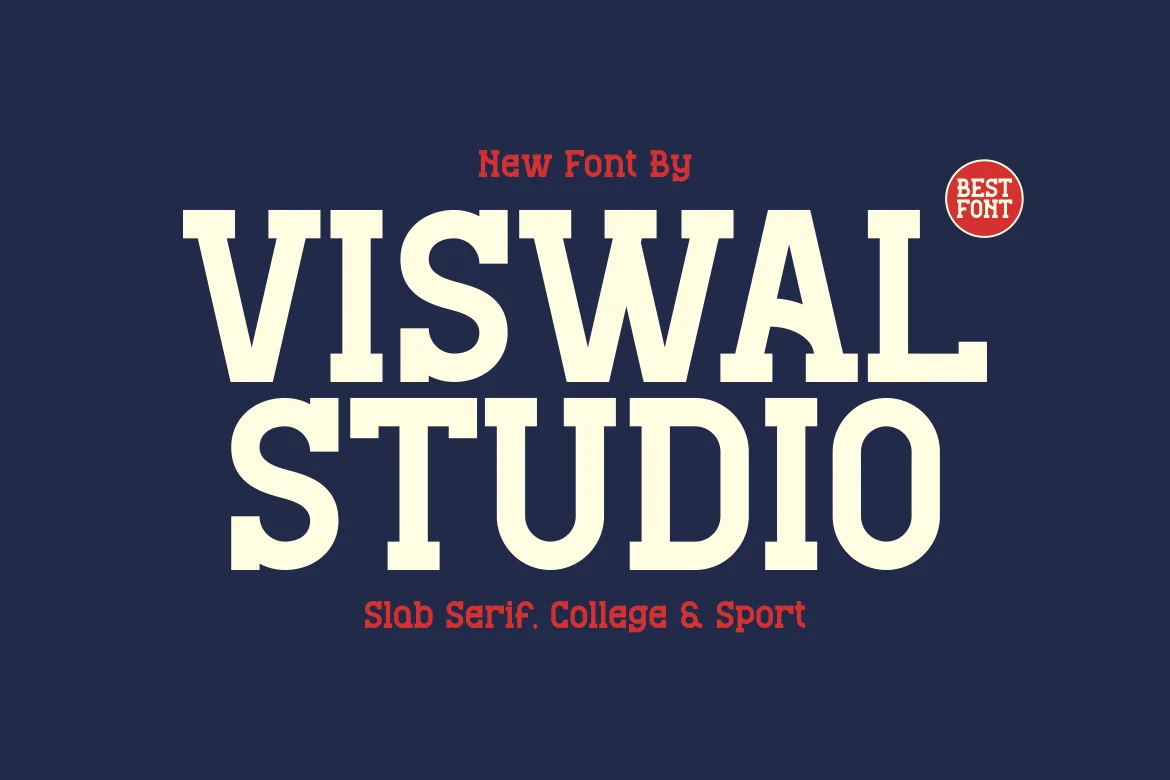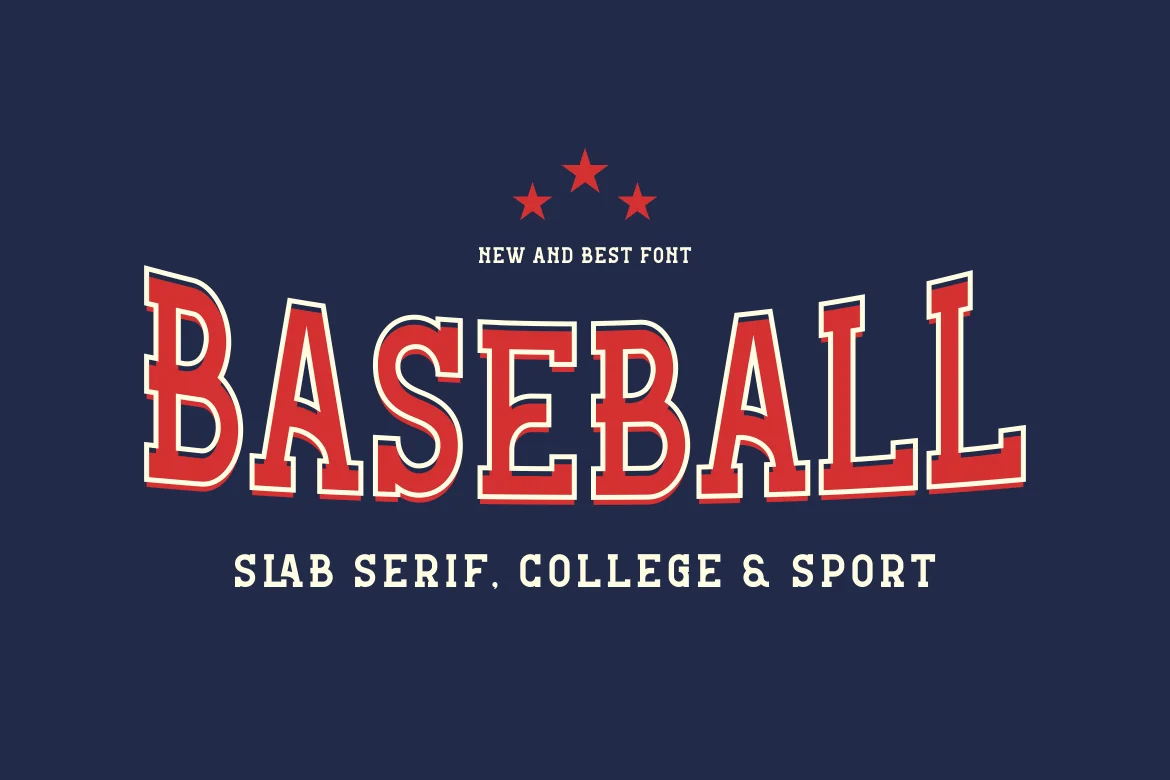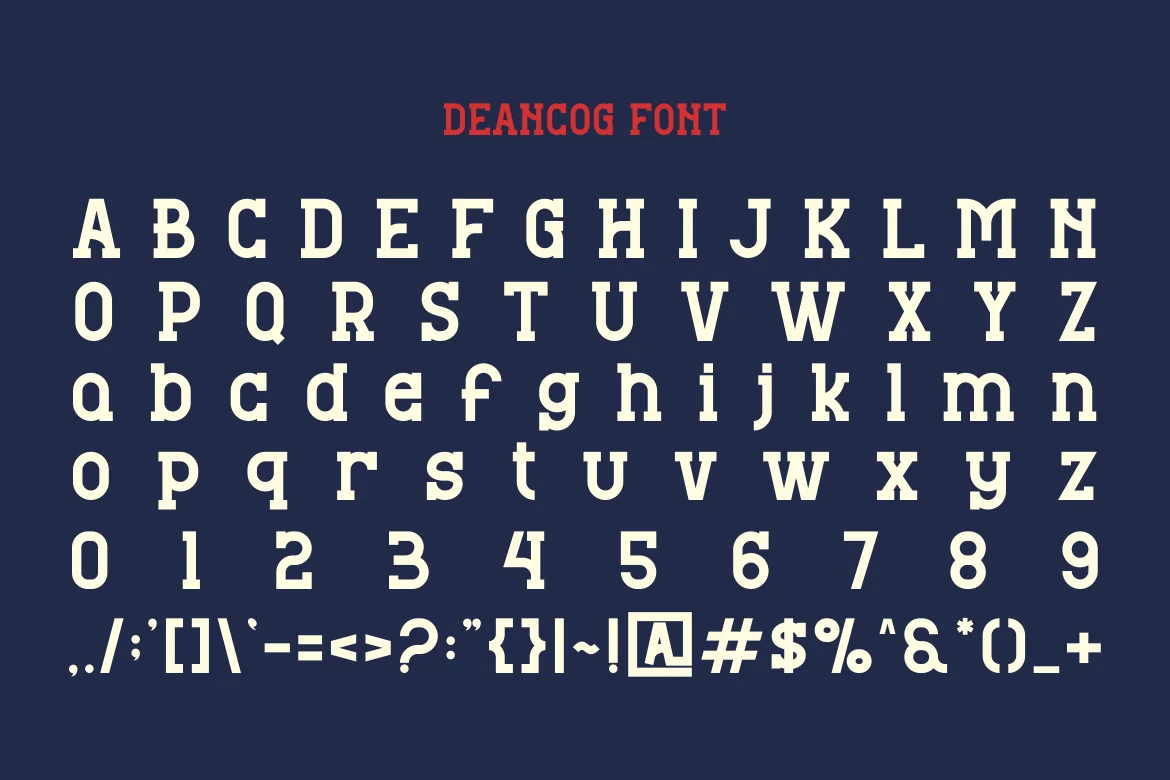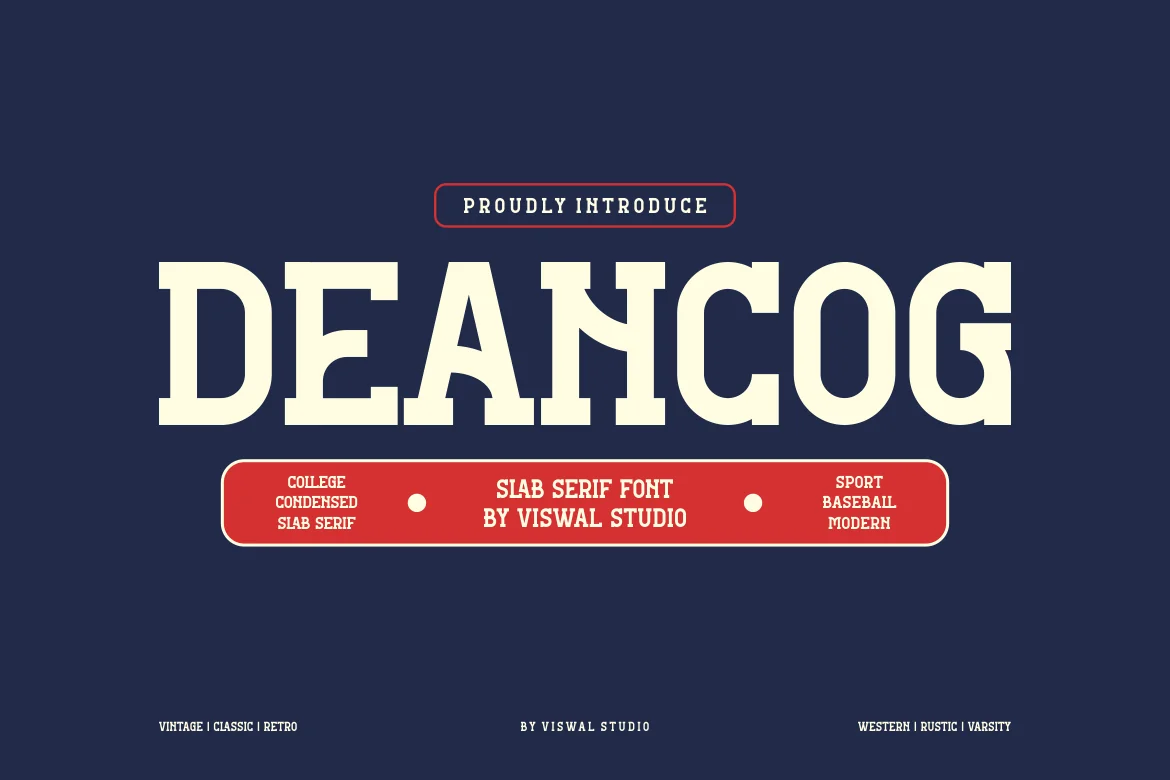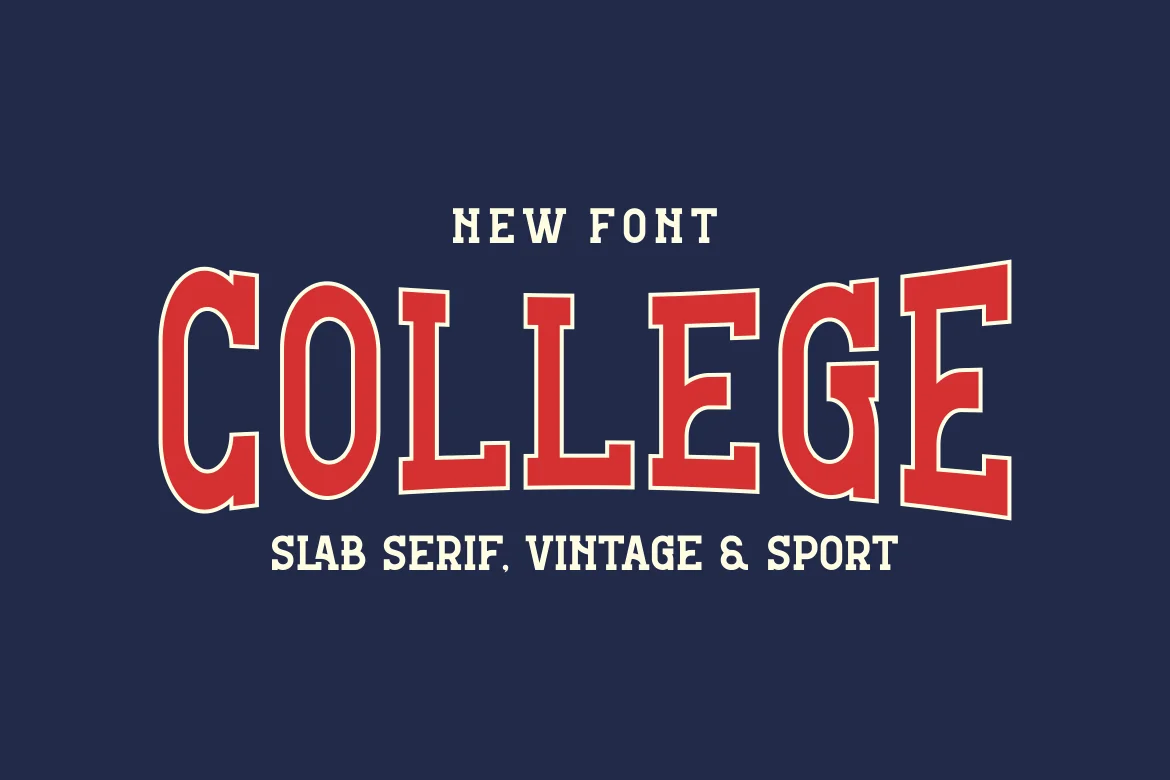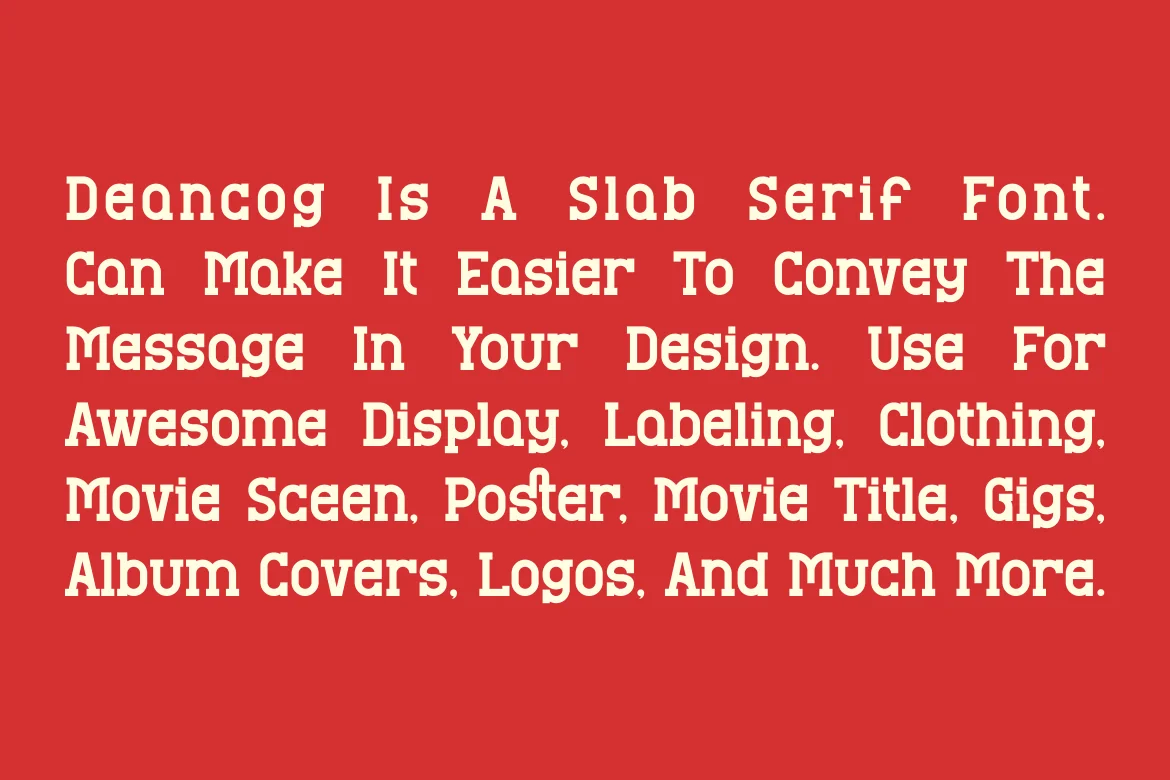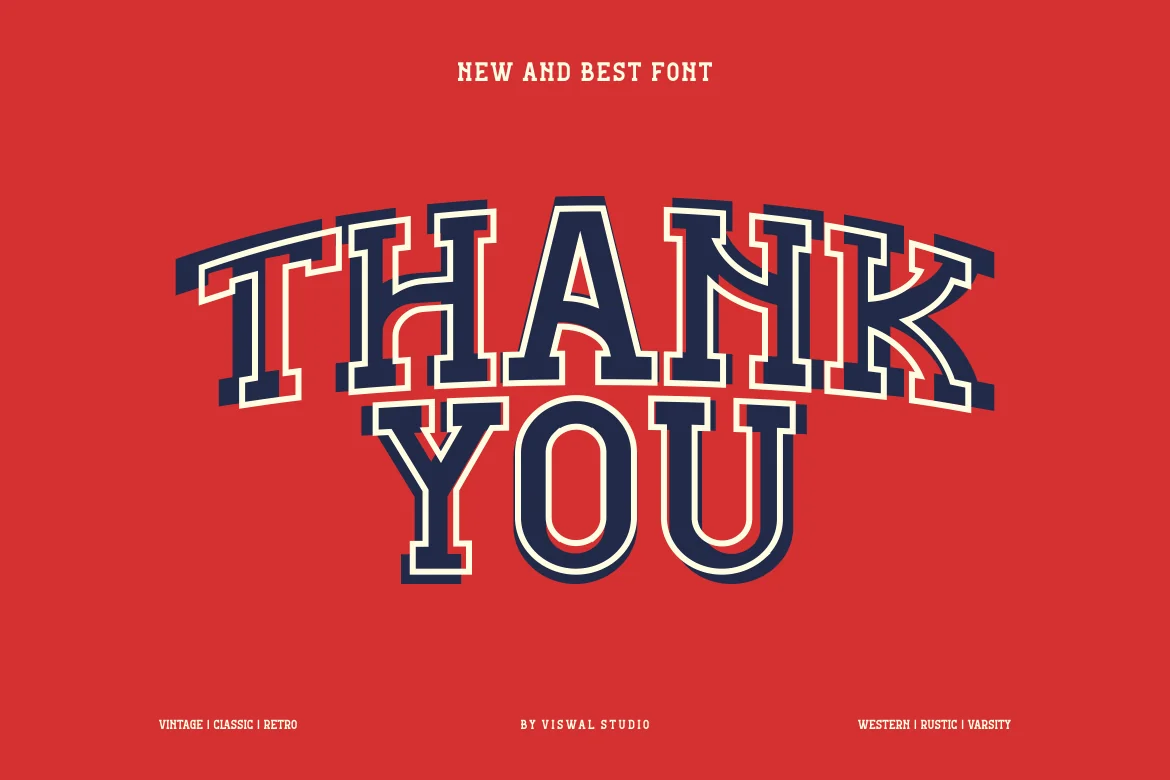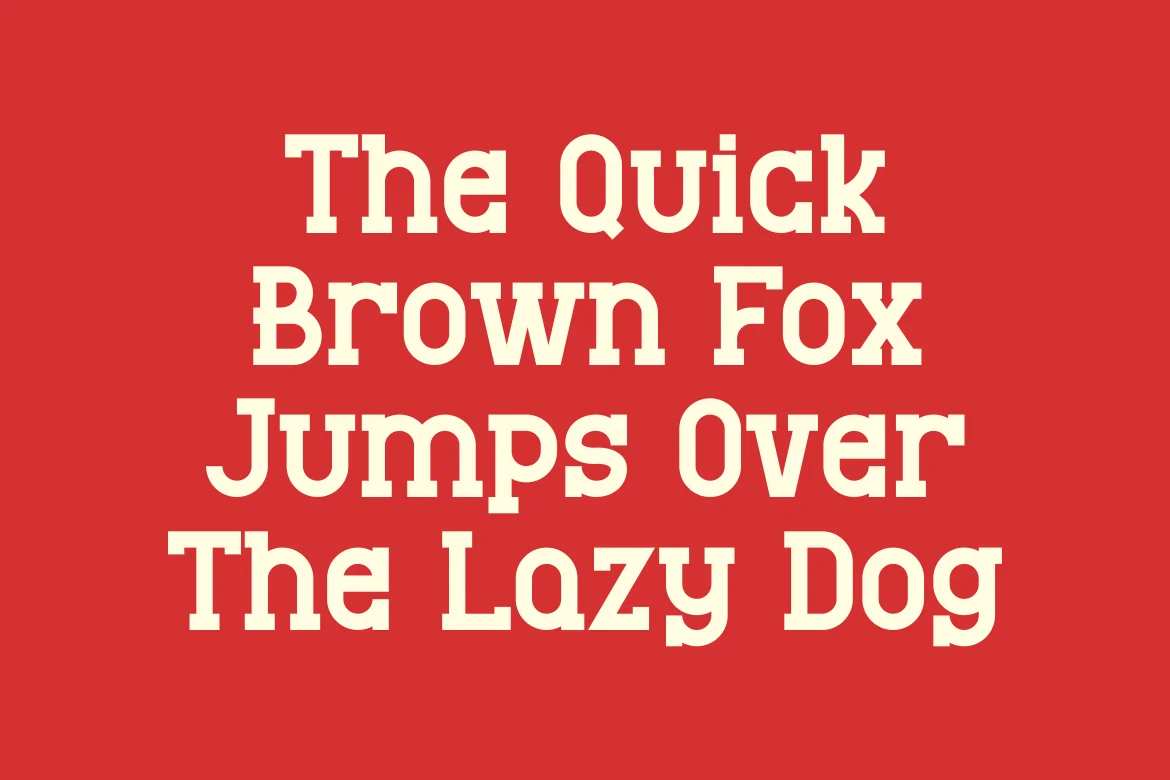
Deancog – Slab Serif & College Font
Presenting Deancog – Font is suitable for badge, labels, logo, branding, magazine, poster and etc. Our fonts have Uppercase & Lowercase, Numeral & Punctuation, Multilingual support and Opentype Features. For Amazing designs you can mix with other fonts as a complement.